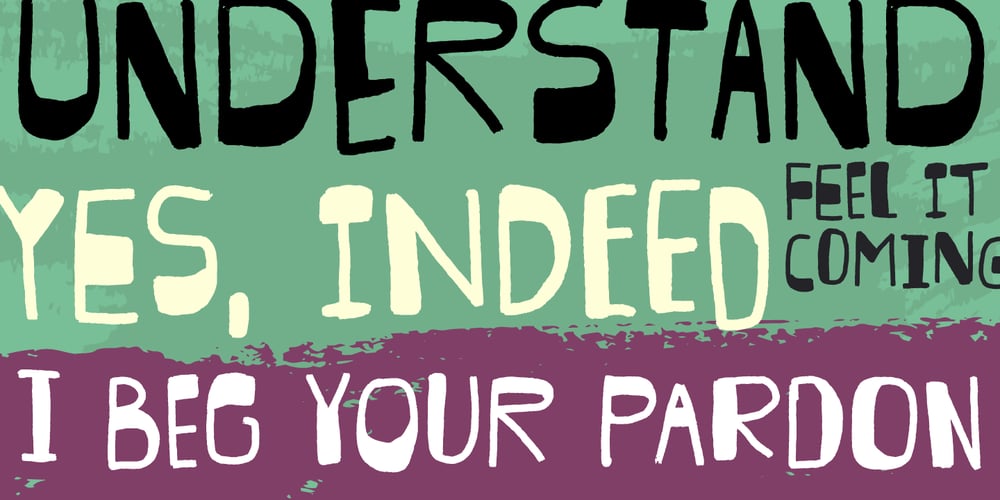
Desperate Joke Font Family was designed by Jakob Fischer and published by PizzaDude.dk. Desperate Joke contains 2 styles and family package options. Desperate Joke is a handmade, kind of grungy, brush font with loads and loads of attitude. Every letter has 7 different versions, and by using the contextual alternates, they automatically cycle as you type!